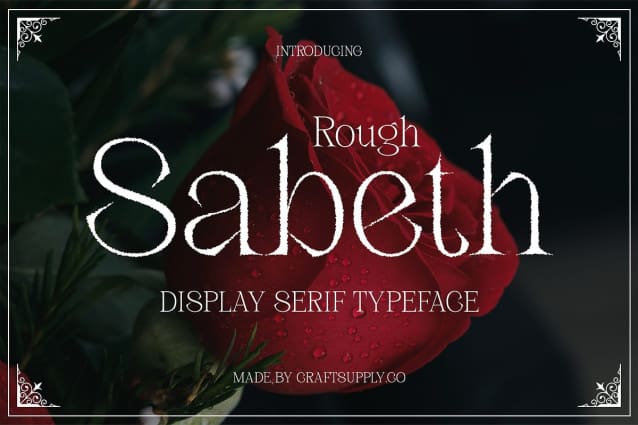
Sabeth Rough Font
Sabeth Rough Font is a modern serif font that seamlessly blends sleek, minimalist design with a rough, textured effect. Its clean lines and thin shapes create a sophisticated, orderly appearance, while the rough texture introduces a unique, artistic touch. This combination results in a font that is both refined and characterful, offering a striking balance between modern elegance and bold visual impact.
Refined Form with a Bold Textured Finish The minimalist design of Sabeth Rough features thin, smooth lines that convey a sense of contemporary elegance. The addition of the rough effect provides visual depth and a coarse texture, enhancing the font’s character without compromising its refined aesthetic. This textural detail adds a layer of artistic flair, making the font stand out with a distinctive and impactful presence.
Perfect for Stylish and Impactful Designs Sabeth Rough excels in a variety of design contexts, from branding and editorial design to promotional materials. Its combination of sleek, modern form and bold, textured finish makes it ideal for projects that require stylish text with a strong visual impression. Whether used in high-end branding or dynamic editorial layouts, this font ensures a sophisticated yet memorable appearance.